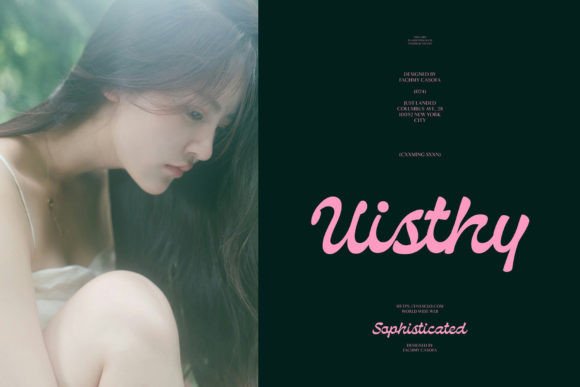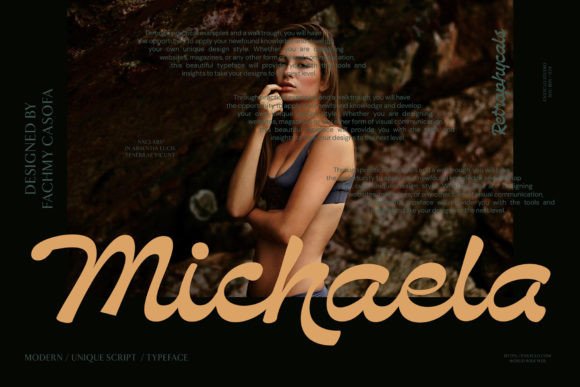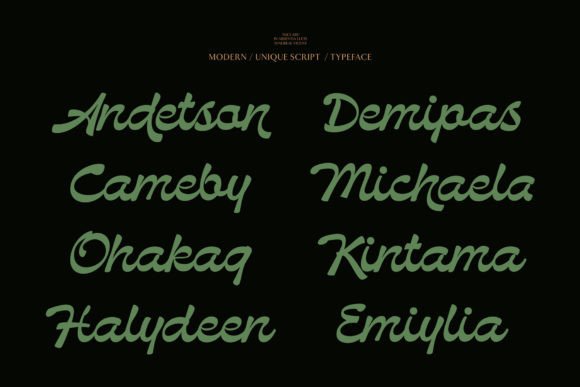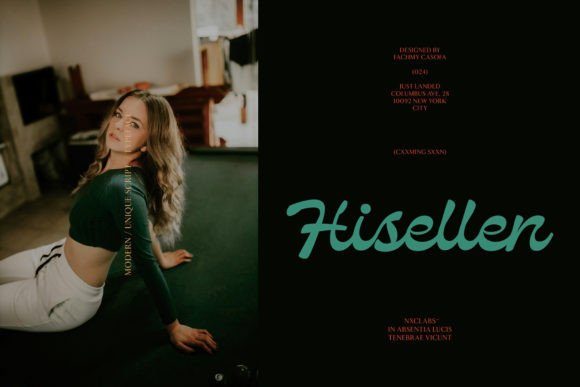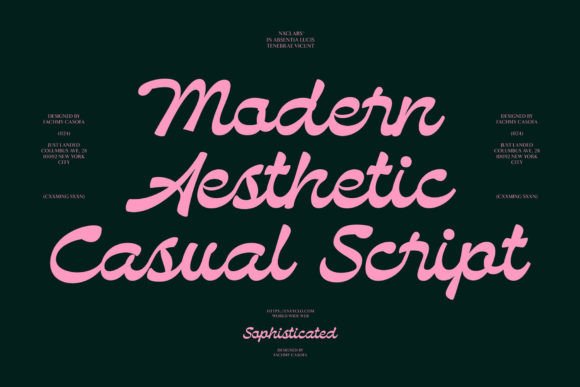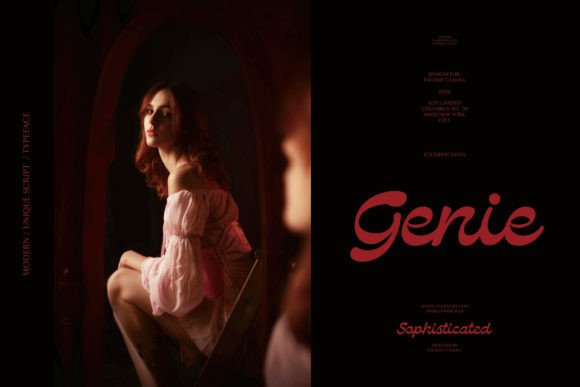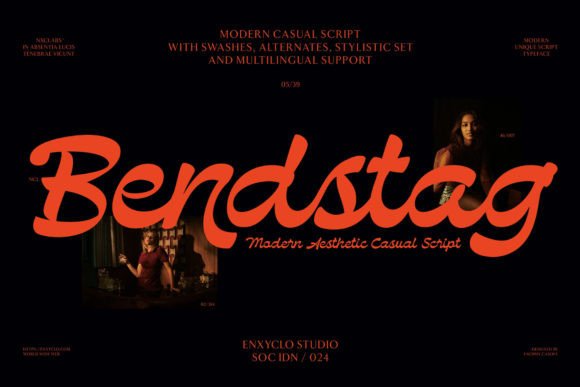
Bendstag Font: Elevate Your Designs with a Modern Casual Script Display Font
In the world of typography, a font can make or break a design. A well-crafted font can elevate your creative ideas and bring them to life. Bendstag is one such font that has the potential to become a true favorite among designers and crafters. This modern casual script display font is masterfully designed to add a touch of elegance and sophistication to any project.
What is Bendstag Font?
Bendstag is a modern casual script display font that is purposely crafted to be used in large point sizes. However, its magic doesn’t fade away when used in small point sizes. This font is perfect for a wide range of applications, including headlines, digital ads, magazines, websites, posters, branding, and logos. Its versatility makes it an incredible asset to your font library, regardless of the topic or theme of your project.
Key Features of Bendstag Font
- Modern and Casual: Bendstag font boasts a modern and casual look that is perfect for designers who want to add a touch of elegance to their projects.
- Script Display Font: This font is designed to be used as a display font, making it perfect for headlines, titles, and other prominent text elements.
- Legible in Large and Small Sizes: Bendstag font remains legible and stylish whether used in large or small point sizes.
- Versatile: This font can be used for a wide range of applications, including digital and print projects.
Why Choose Bendstag Font?
With Bendstag font, you can make your project stand out from the rest. Its unique and stylish design ensures that your creative ideas are conveyed in a visually appealing way. Here are some reasons why you should consider adding Bendstag to your font library:
- Elegance and Sophistication: Bendstag font adds a touch of elegance and sophistication to any project.
- Easy to Read: The font is designed to be easy to read, making it perfect for body text and headlines.
- Customizable: Bendstag font can be customized to fit your project’s specific needs.
- Time-Saving: With Bendstag font, you can save time and effort in finding the perfect font for your project.
How to Use Bendstag Font?
Using Bendstag font is easy and straightforward. Here are some tips on how to get the most out of this beautiful font:
- Use it as a Display Font: Bendstag font is designed to be used as a display font, so use it for headlines, titles, and other prominent text elements.
- Experiment with Different Sizes: Try using Bendstag font in different sizes to see how it looks in various contexts.
- Pair it with Other Fonts: Bendstag font can be paired with other fonts to create a unique and stylish look.
In conclusion, Bendstag font is a modern casual script display font that has the potential to elevate any design. Its unique and stylish design makes it perfect for a wide range of applications, from headlines and digital ads to magazines and websites. With its legibility, customizability, and versatility, Bendstag font is an incredible asset to any font library. Whether you’re a designer or crafter, Bendstag font is a must-have font that will help you bring your creative ideas to life.